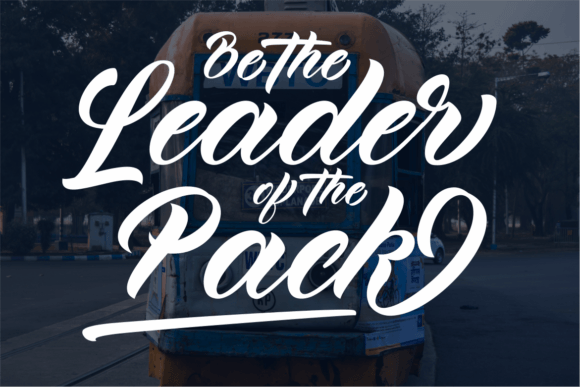
Authentic is a modern and bold script font. Whether you’re using it for crafts, digital design, presentations, or making greeting cards, this font has the potential to become your favorite go-to font, no matter the occasion! This font is PUA encoded which means you can access all the glyphs and ligatures with ease!
Authentic Font